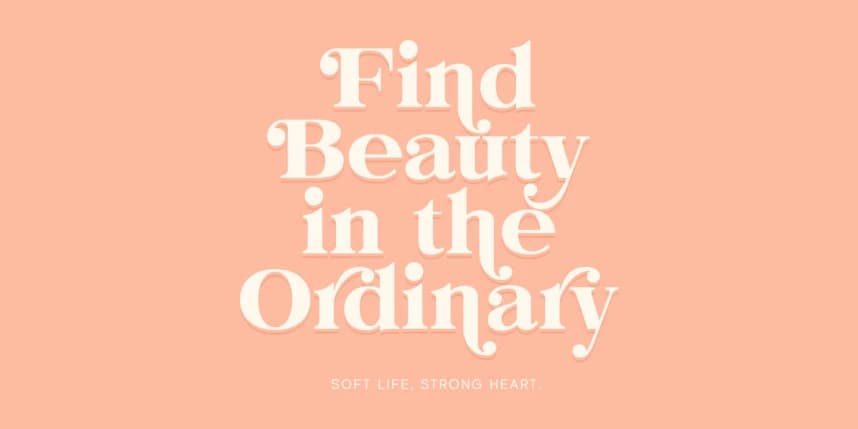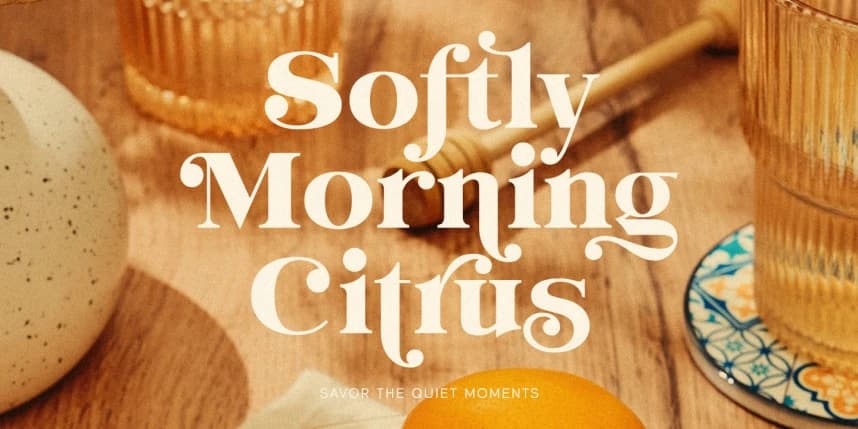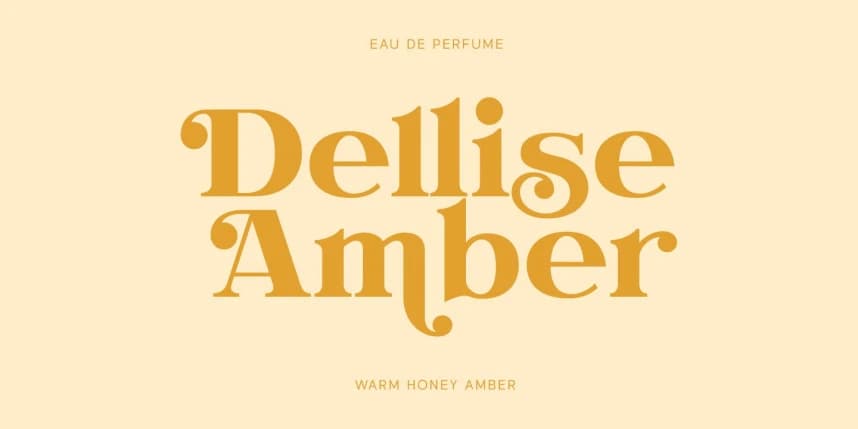
Evorine Font
Evorine Font is a dreamy little statement font with soft curves, bold elegance, and that effortlessly pretty look that feels like golden hour in typography form. With its high-contrast serif shapes and playful vintage charm